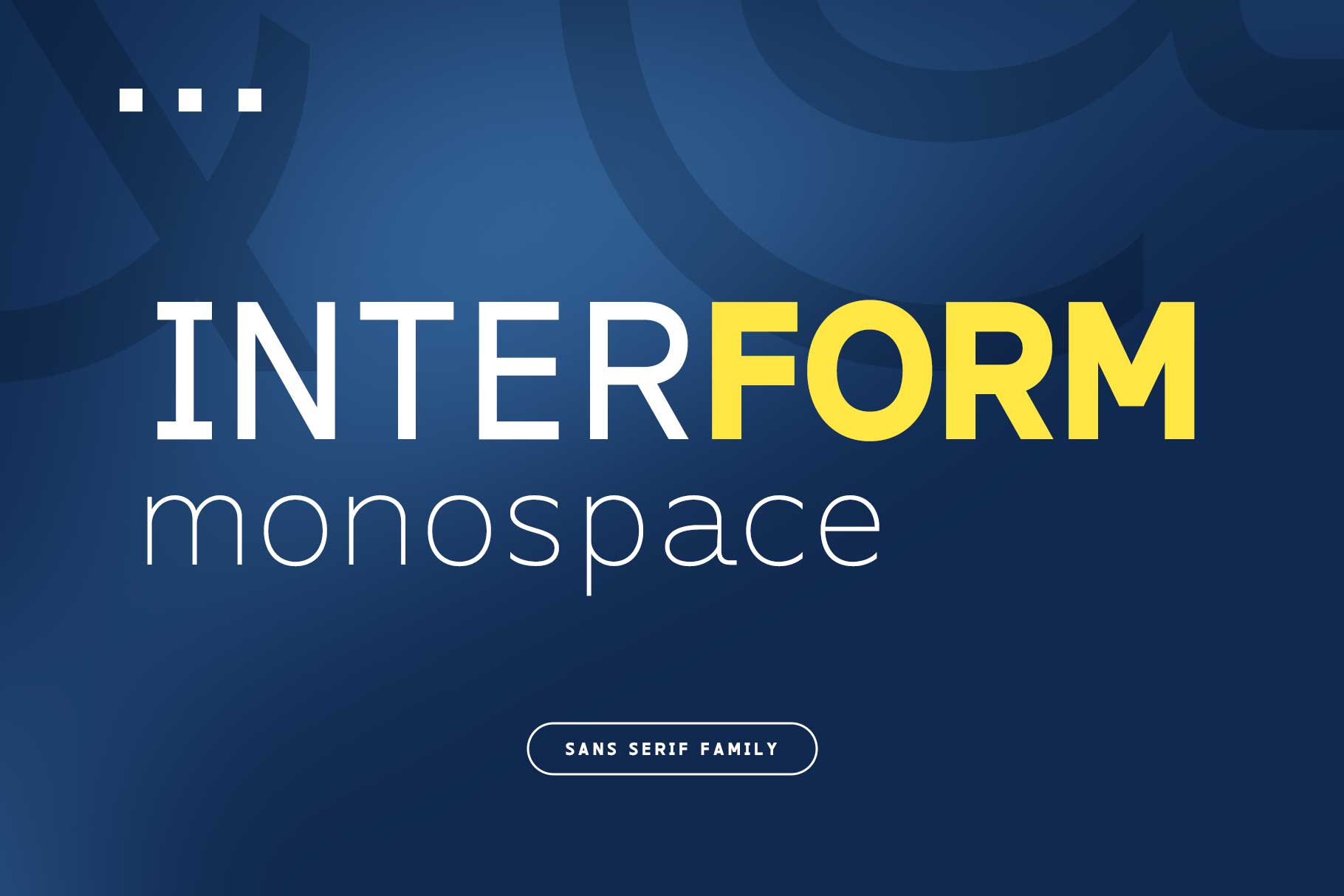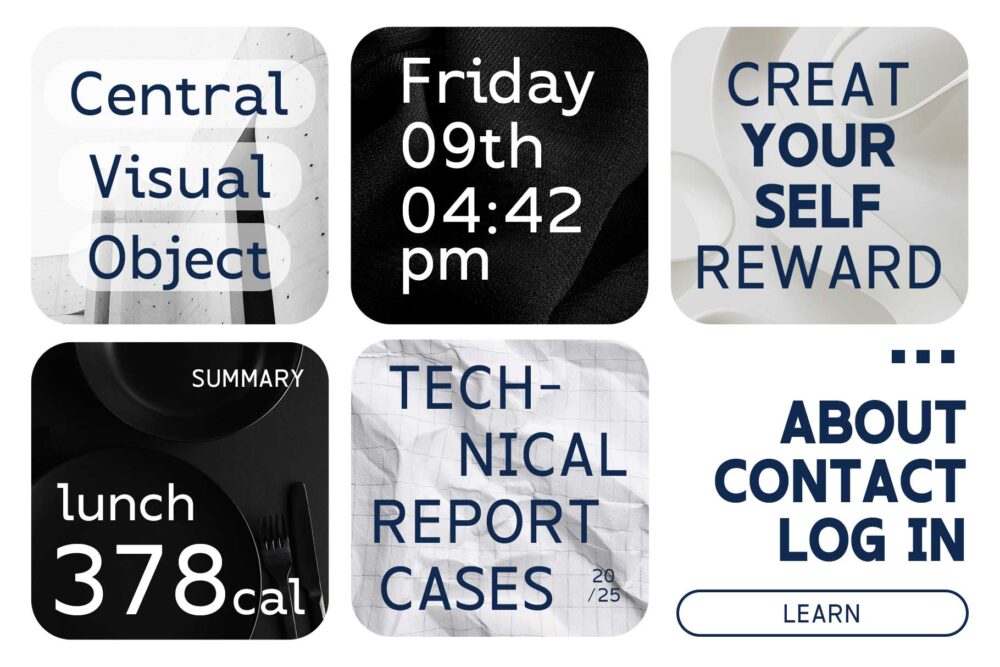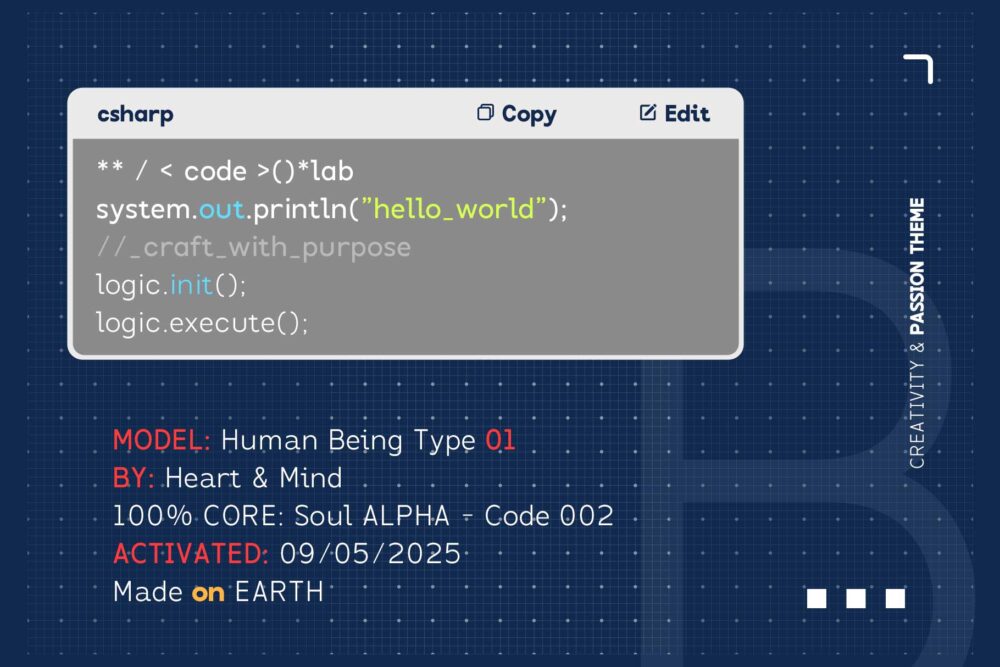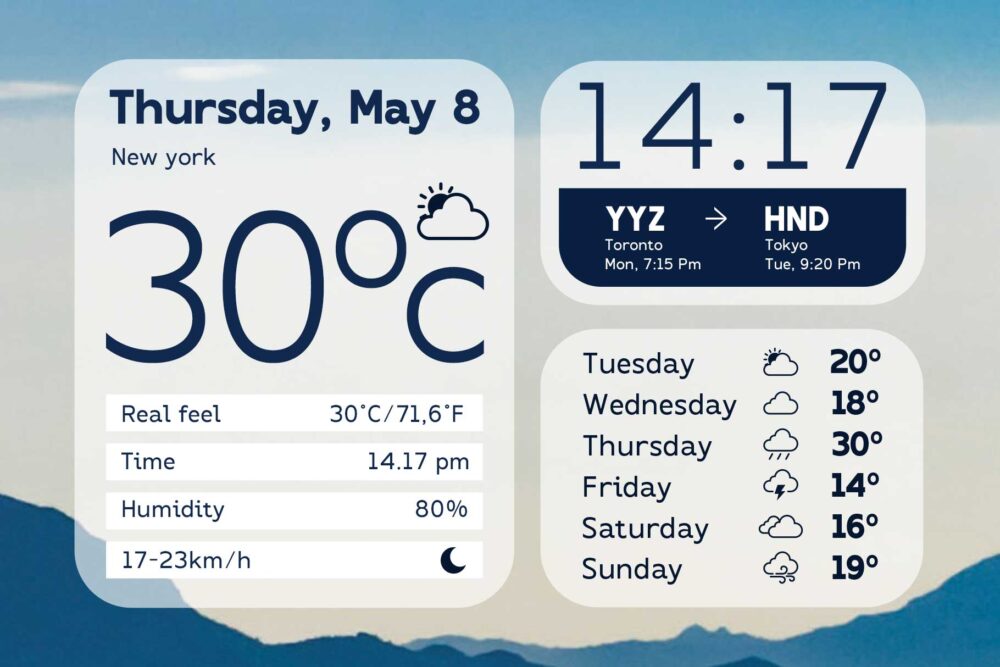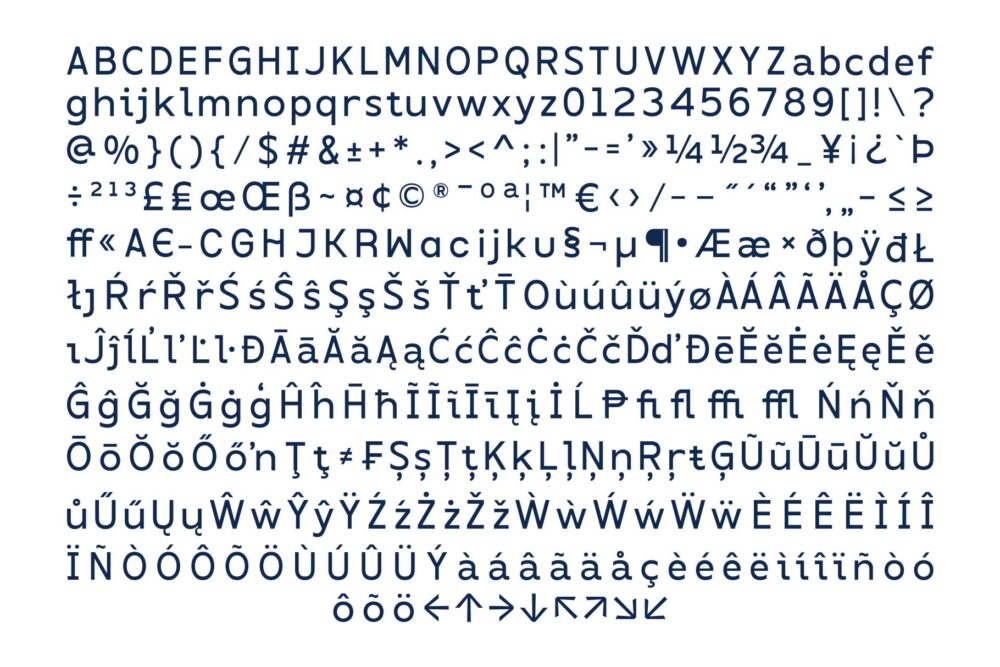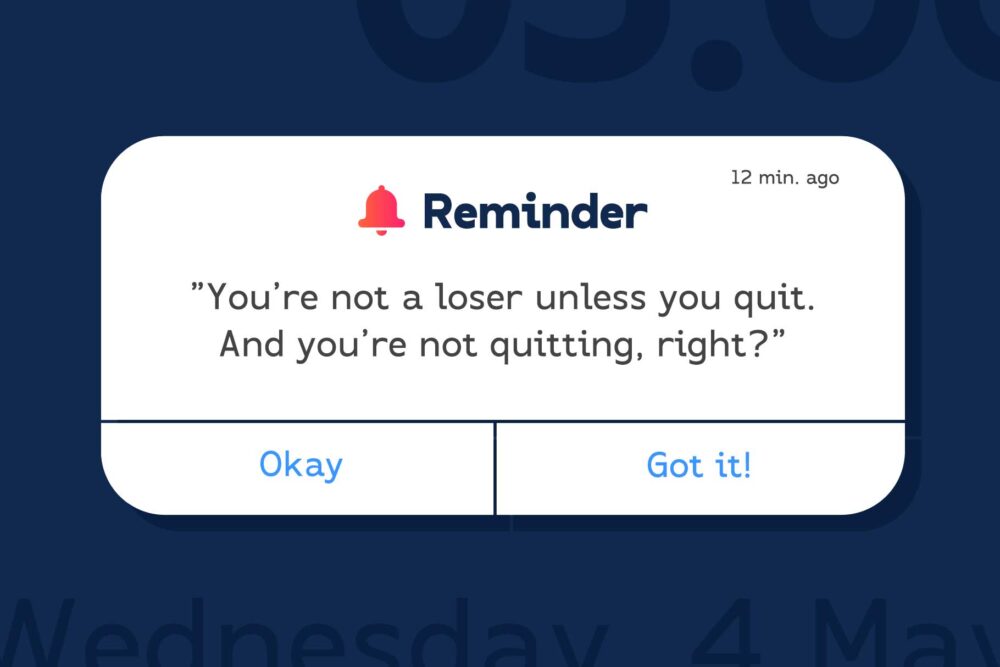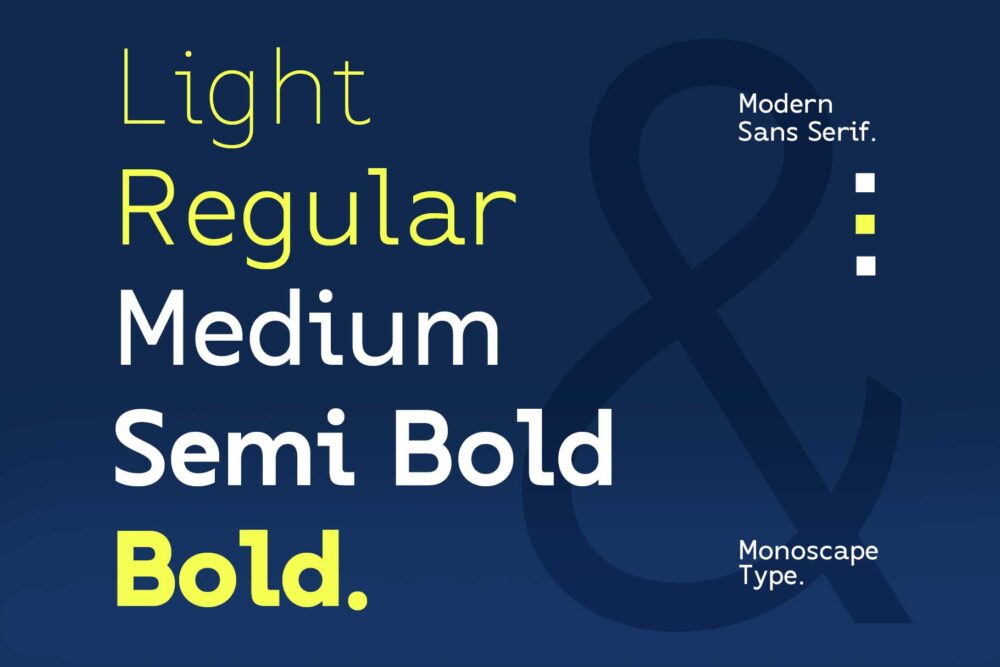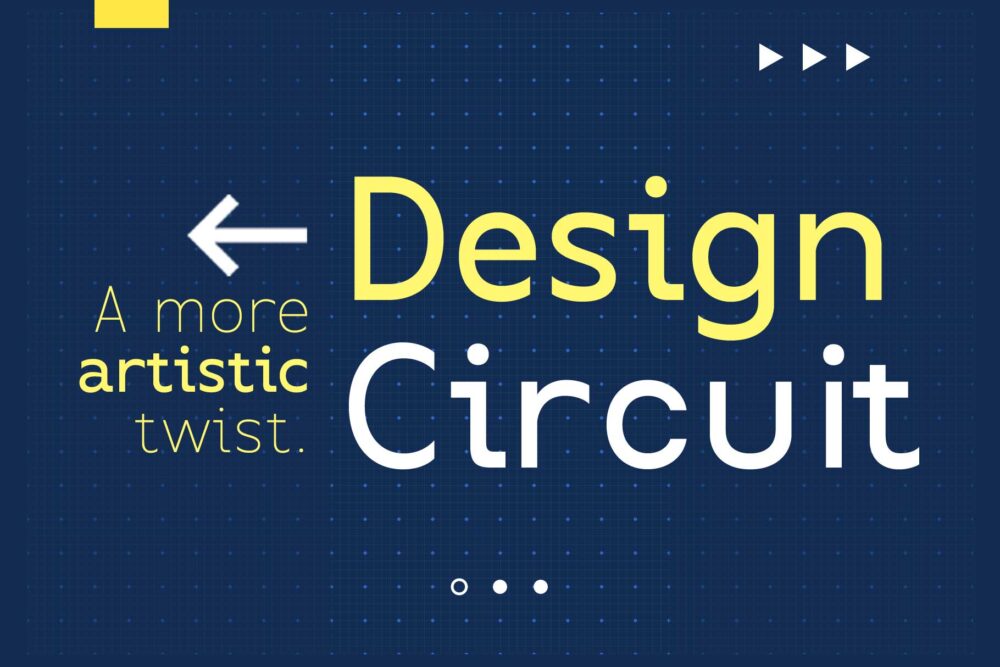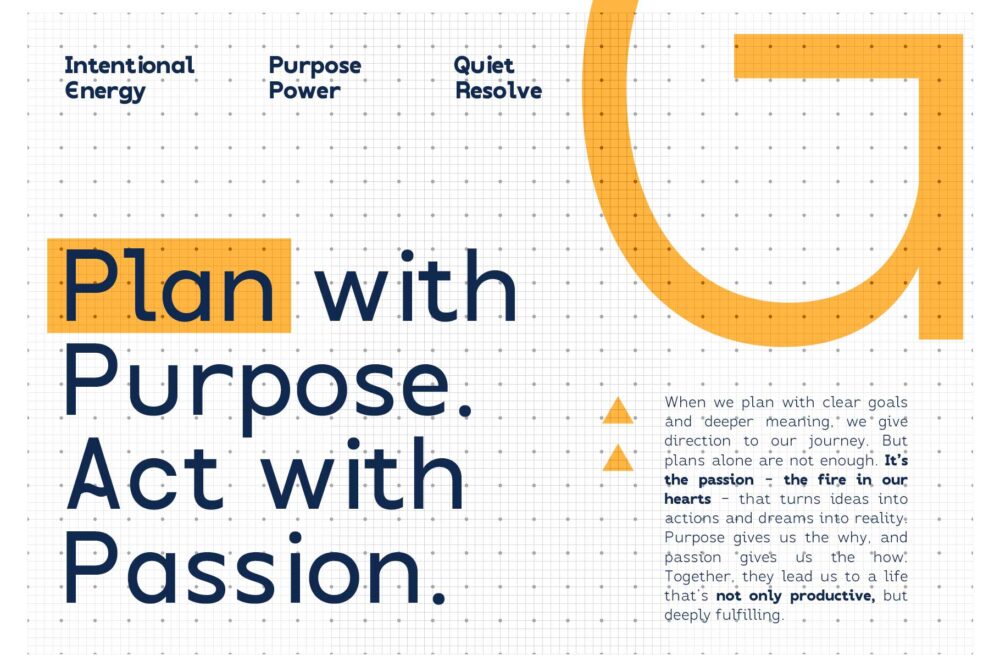
Interform typeface ideal for coding, UI, and editorial layouts
Interform is a modern monospaced typeface, built with strong letterforms and an industrial aesthetic. It is designed to maintain readability at both small and large sizes. Interform is available in five weights—Light, Regular, Medium, SemiBold and Bold—to suit a wide range of design needs.
This typeface is ideal for digital interfaces, coding, labels, editorial layouts, tickets, and more. Although it features zero kerning, its well-balanced spacing makes it suitable for headlines, subheadlines, taglines, and body text. Interform also includes stylistic alternates and supports multiple languages.
Interform – Modern Monospaced Font